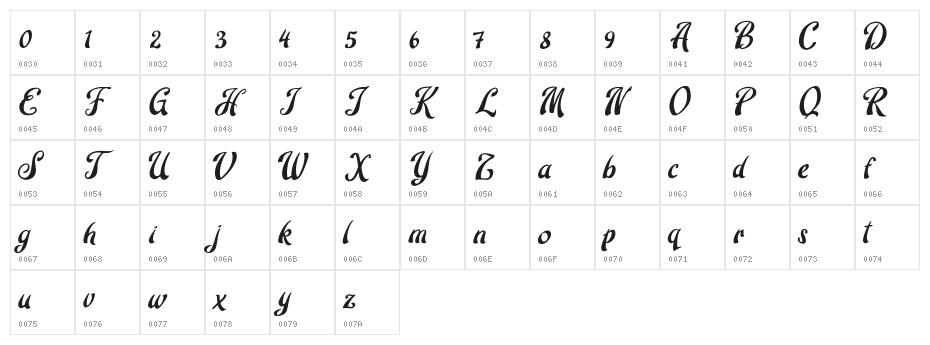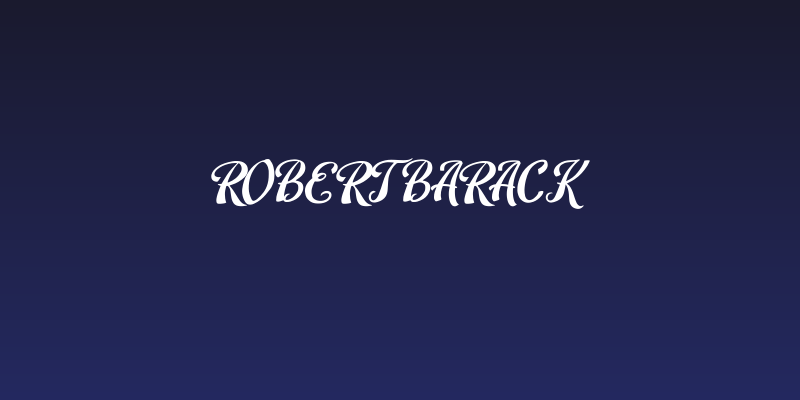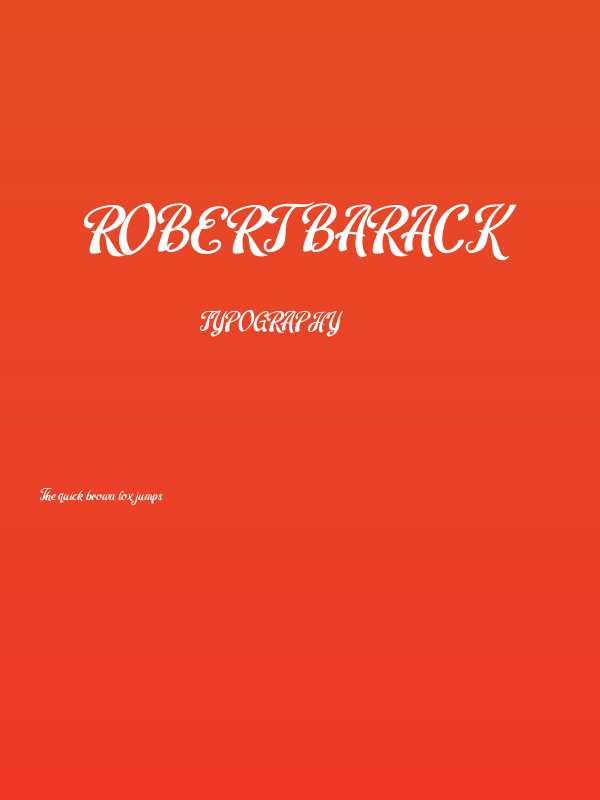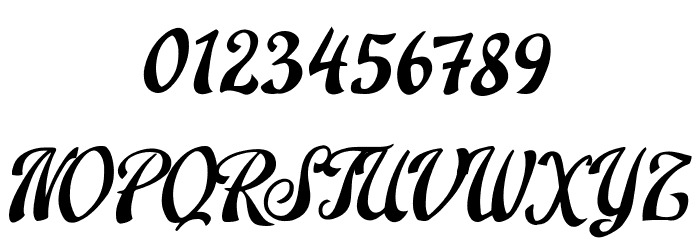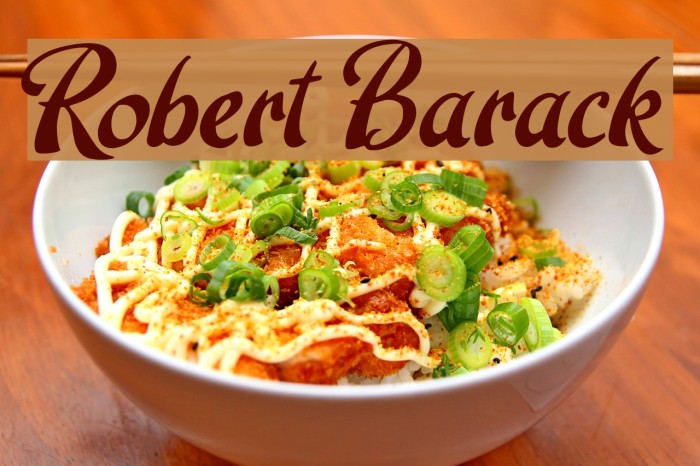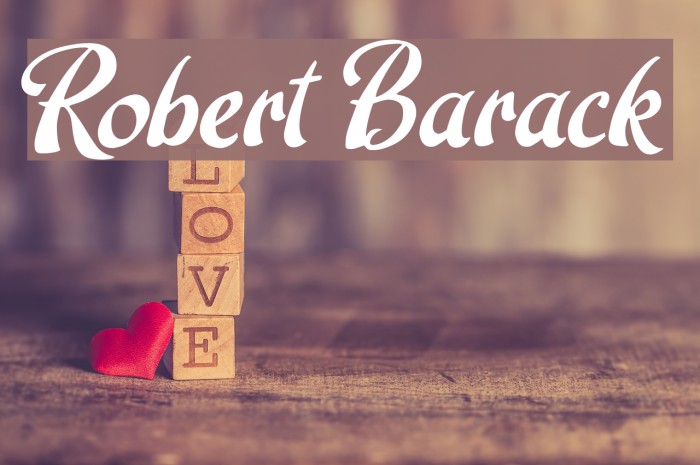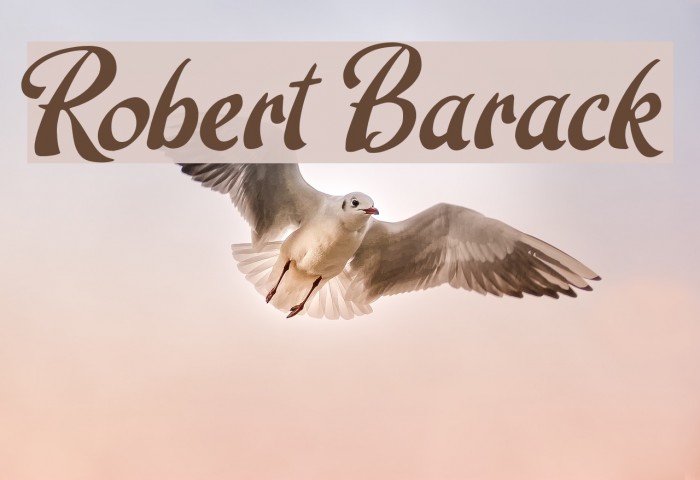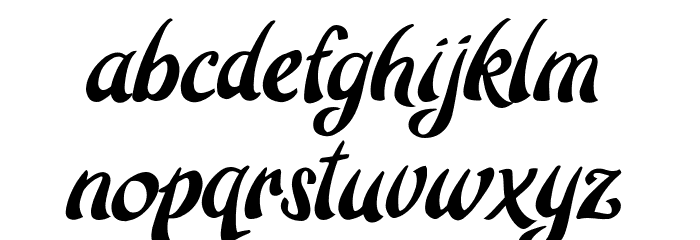
Robert Barack Font
Robert Barack Description
This font features a bold and flowing script style, characterized by its elegant and cursive letterforms. The uppercase letters are particularly ornate, with sweeping curves and flourishes that give a sense of movement and sophistication. The lowercase letters maintain a consistent style, with smooth connections between characters that enhance readability while retaining a decorative flair. The numerals are equally stylized, matching the overall aesthetic with their rounded and flowing shapes. The special characters are integrated seamlessly, maintaining the font's cohesive appearance. This font is ideal for projects that require a touch of elegance and artistic expression.
| Proposed Projects | Ideal for wedding invitations, greeting cards, branding, and logo design where elegance and style are desired. |